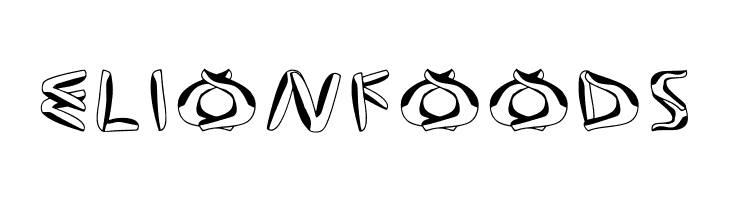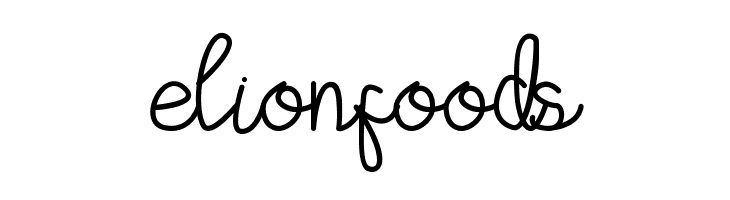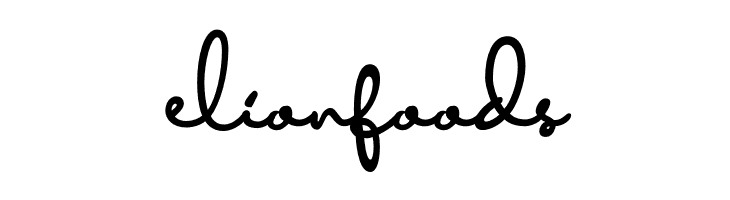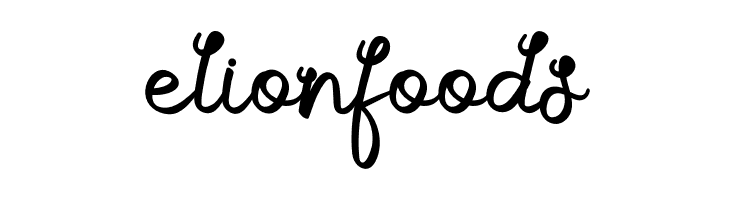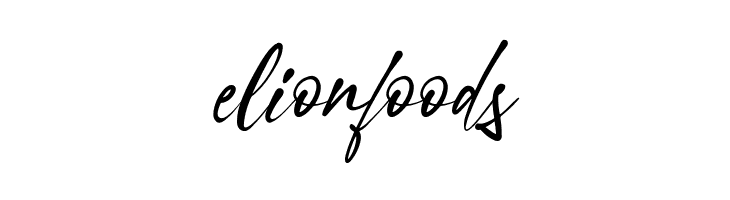
A playful, twisting font with a hand-drawn, artistic style.
A fluid, cursive script font with elegant, connected letters.
A graceful and flowing script font with interconnected characters.
A playful, casual handwritten font with smooth, flowing lines and uniform strokes.
A playful and elegant script font with hand-drawn, looping strokes.
A flowing, elegant script font with graceful curves and artistic flair.
A playful, handwritten font with flowing, interconnected letters and a whimsical style.
A lively, handwritten font with fluid strokes and a playful style.
A playful, handwritten script font with smooth curves and a whimsical style.
A fluid and elegant script font with smooth, flowing lines.